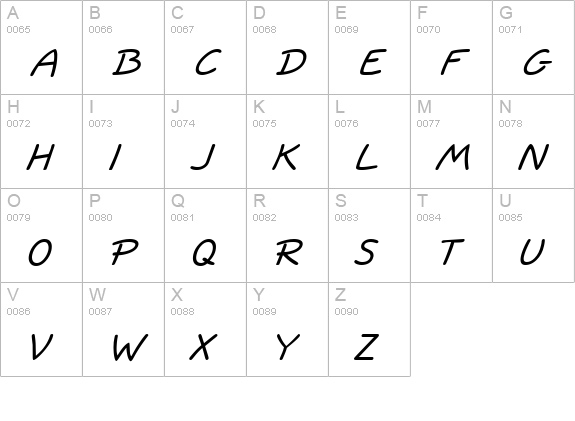
Short Hand Italic is a distinctive, italic variant in the Short typeface family \xE2\x80\x94 well suited to design and typography projects.
Introducing Short Hand Italic, a charming and versatile font that adds a touch of elegance to any creative project. With its sleek and slanted letters, this font effortlessly captures attention and creates a sense of sophistication. Crafted with meticulous attention to detail, Short Hand Italic offers a perfect balance between modernity and classic handwriting. Its stylish curves and flowing strokes make it ideal for a wide range of applications, whether it's designing logos, creating eye-catching headlines, or adding a personal touch to invitations and stationery. But what makes Short Hand Italic truly remarkable is that it is not only visually stunning but also free to download. Yes, you read that right! This exquisite font is available for free at FontsMarket.com, a leading online platform for font enthusiasts. With just a few clicks, you can bring this exceptional typeface to your digital library and start using it in your projects right away. Whether you're a professional designer looking to enhance your portfolio or an aspiring creative seeking to make a statement, Short Hand Italic is the perfect choice. Its versatility, elegance, and the fact that it is freely available for download make it a must-have font for any design endeavor. So why wait? Head over to FontsMarket.com and get your hands on Short Hand Italic – the epitome of style, grace, and accessibility. Don't miss out on this incredible opportunity to elevate your designs with a font that combines beauty and affordability in one seamless package.